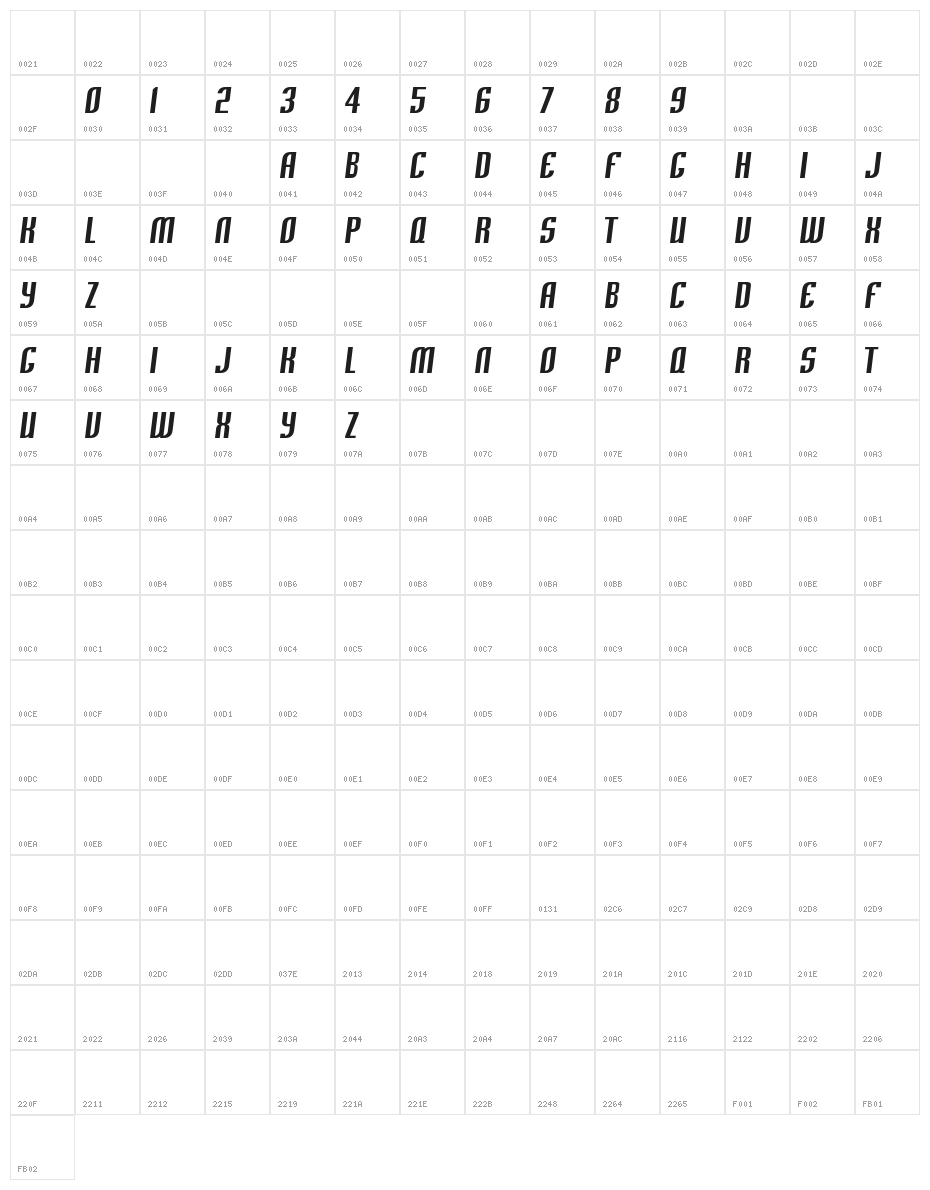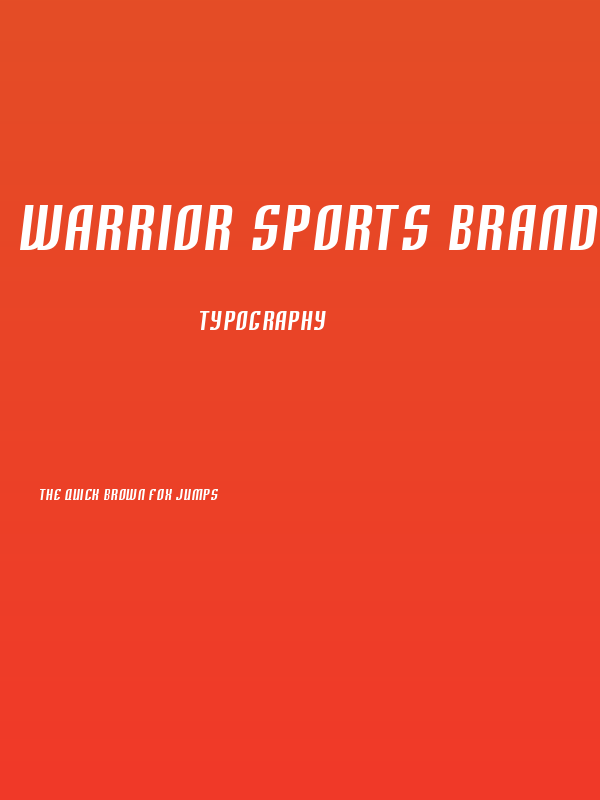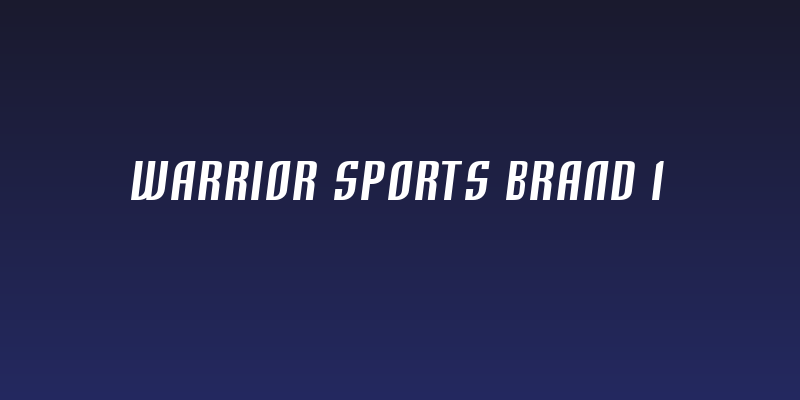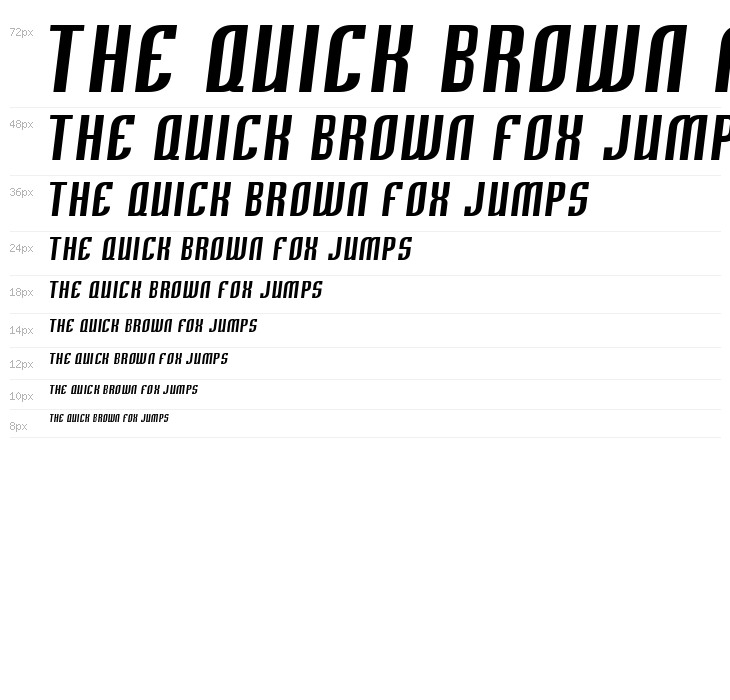
Warrior Sports Brand 1 Font
Warrior Sports Brand 1 Description
This font features a bold and dynamic design, characterized by its slanted, italicized letterforms that convey a sense of motion and energy. The characters are slightly condensed, enhancing their compact and powerful appearance. The strokes are consistent in thickness, providing a uniform look across all letters and numbers. The font's sharp angles and clean lines give it a modern and sporty feel, making it ideal for applications that require a strong and impactful visual presence. Its design is well-suited for branding, particularly in sports-related contexts, where conveying strength and agility is essential.
| Use Case | Logos, Headlines |
| Proposed Projects | Ideal for sports branding, athletic apparel logos, and dynamic advertising campaigns. |